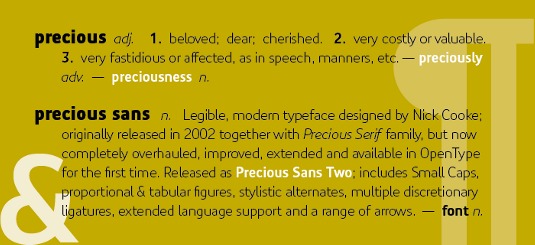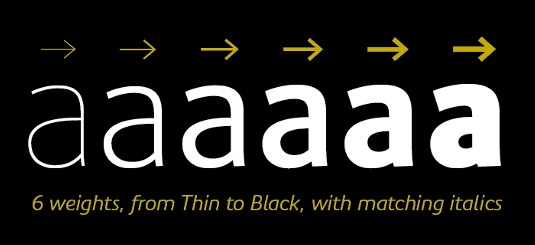
Font of the day: Precious Sans Two
Precious Sans Two by G-Type
Today's font is an update of Precious Sans, designed in 2002 by G-Type's Nick Cooke. Re-appraised and overhauled for 2014, Precious Sans Two is a complete OpenType reworking of the PostScript original, with every character redrawn, re-proportioned, re-spaced and improved.
Available in six weights plus italics, with some of the original's quirkier glyphs retained as an OT style set feature, Precious Sans Two is available now from G-Type with 25 per cent off until the end of February 2014.